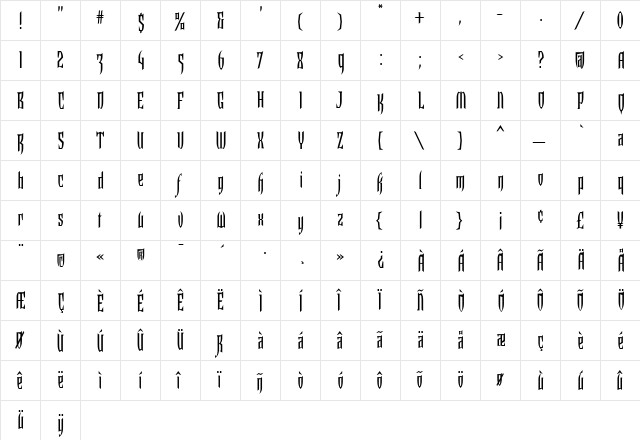
Kruella Regular
Design Context for Kruella Typeface
Kruella is a composed and adaptable typeface that performs quietly and consistently across a wide range of design contexts.